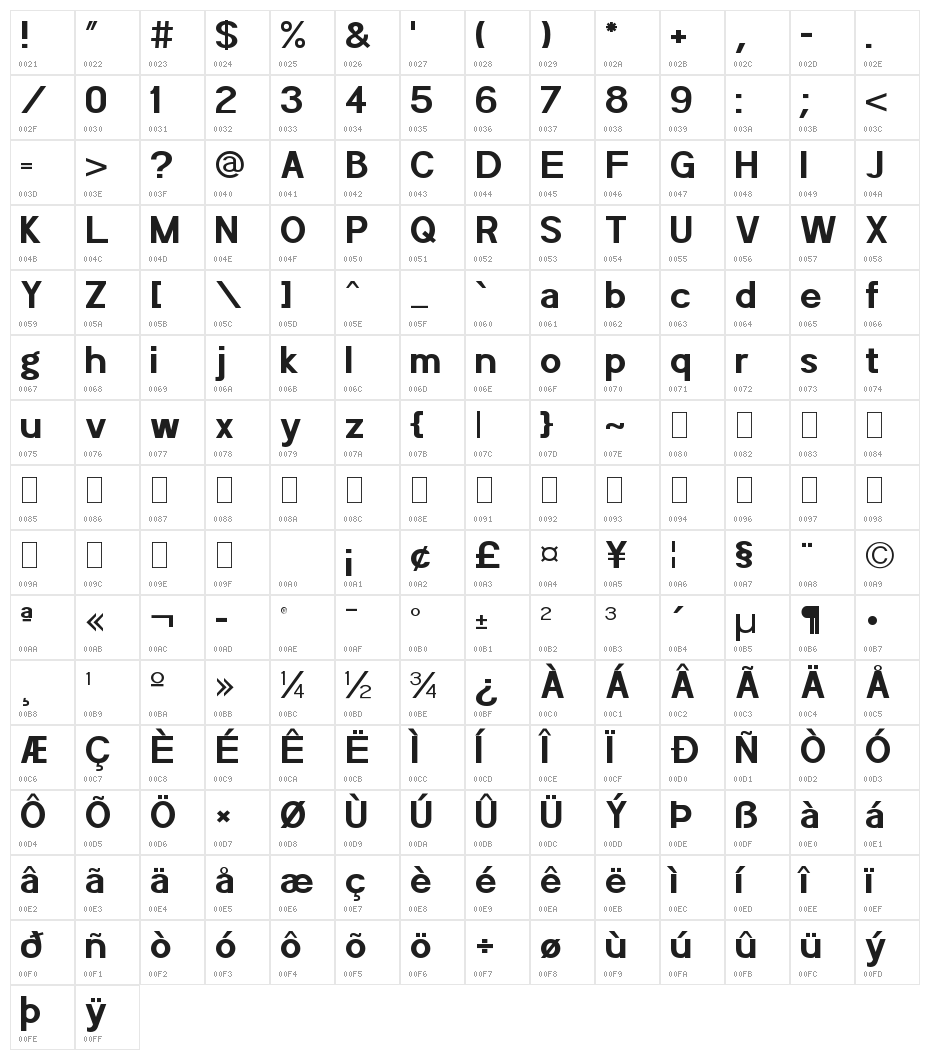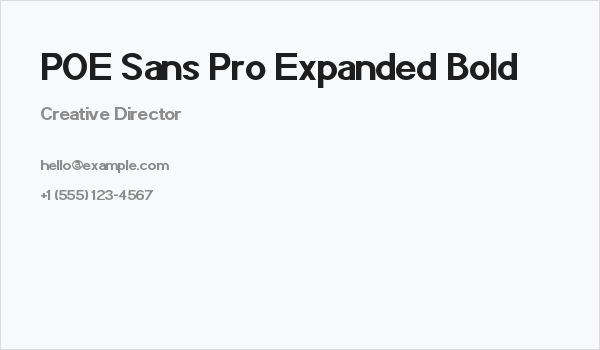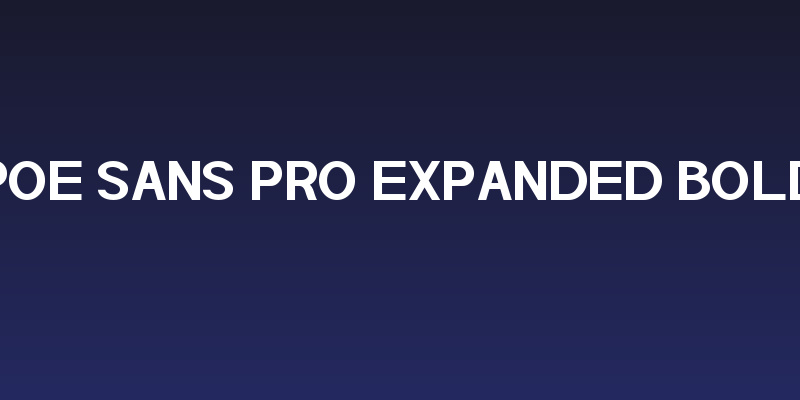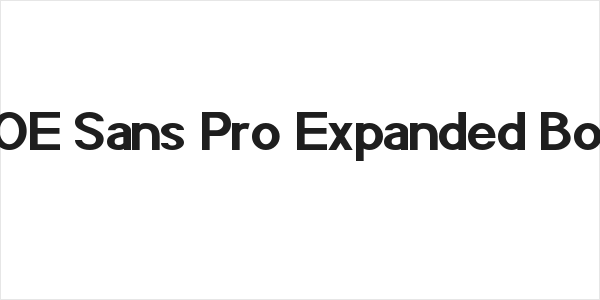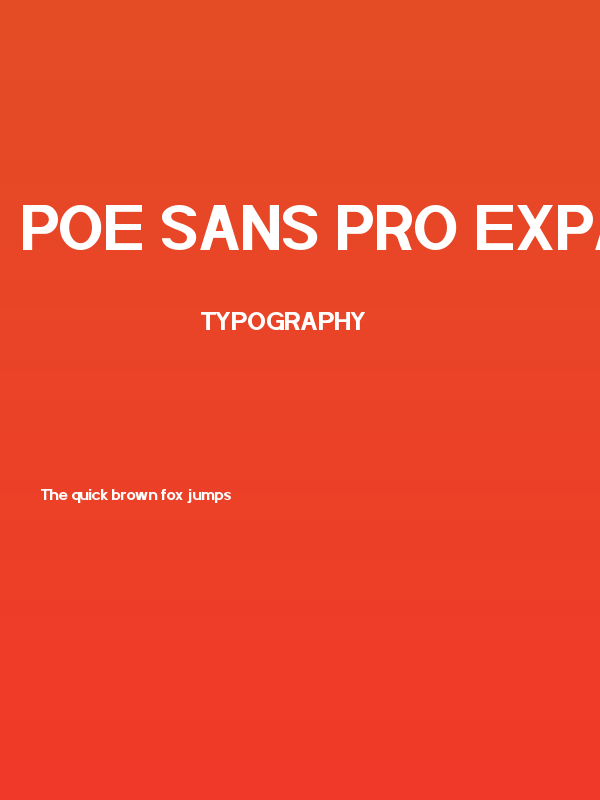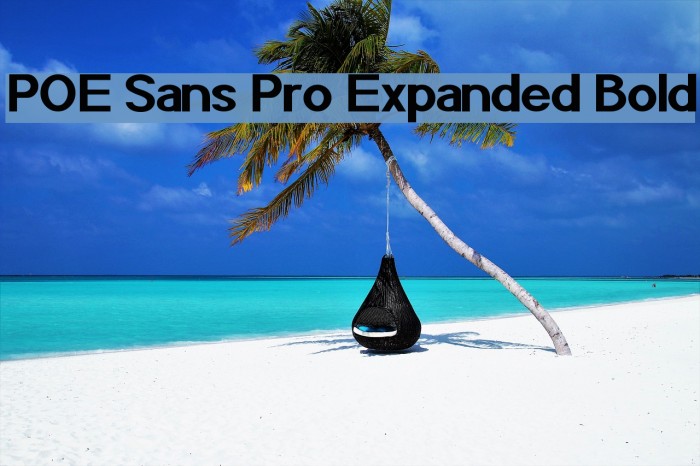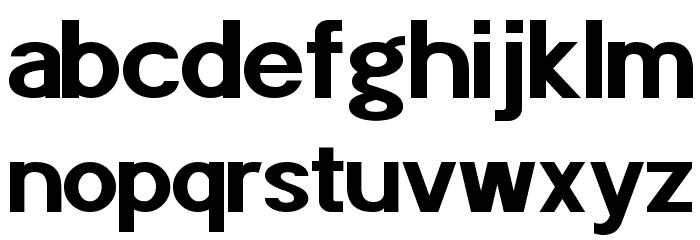
POE Sans Pro Expanded Bold Font
POE Sans Pro Expanded Bold Description
This font features a bold and expanded style, characterized by its clean and modern sans-serif design. The letters are evenly spaced with a consistent stroke width, providing a strong and impactful appearance. The uppercase and lowercase letters maintain a uniform height, enhancing readability and visual balance. The numerals are clear and distinct, making them suitable for various applications. Special characters are well-defined, adding versatility to the font's usage. Overall, this font exudes a contemporary and professional vibe, making it ideal for projects that require a bold statement.